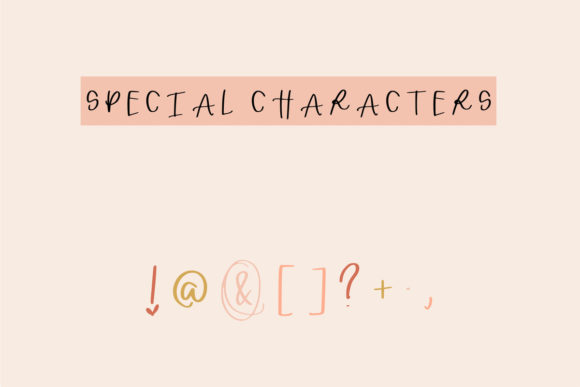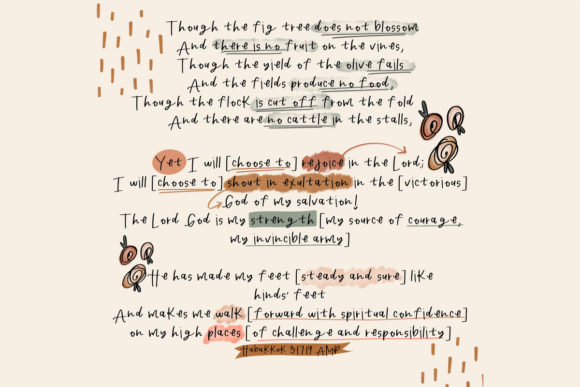
Discover the Charm of Find Wondrous Things Font
In the vast world of typography, there’s a font that stands out for its unique blend of cuteness and quirkiness, making it a perfect fit for projects that require a relaxed and informal touch. Welcome to Find Wondrous Things Font, a handwritten gem that has captured the hearts of designers and crafters alike. In this article, we’ll dive into the characteristics, uses, and benefits of this delightful font, and explore why it’s becoming a go-to choice for creatives.
The Essence of Find Wondrous Things Font
Find Wondrous Things is a cute and quirky handwritten font that exudes a casual vibe, making it an excellent choice for projects that require a personal and relaxed approach. Its informal style is reminiscent of handwritten notes, journals, and letters, which adds a touch of warmth and personality to any design. This font is perfect for designers and crafters who want to infuse their creations with a sense of playfulness and whimsy.
Key Features of Find Wondrous Things Font
- Handwritten style: Find Wondrous Things Font boasts a genuine handwritten look, complete with subtle imperfections and variations in letterforms.
- Informal and casual: This font is designed to evoke a sense of relaxation and friendliness, making it perfect for projects that require a laid-back approach.
- Quirky and playful: Find Wondrous Things Font has a unique charm that adds a touch of whimsy to any design.
- Easy to read: Despite its informal style, this font remains highly legible, making it suitable for a wide range of applications.
Uses of Find Wondrous Things Font
Find Wondrous Things Font is a versatile typeface that can be used in various creative projects, including:
- Branding and packaging: Add a personal touch to your brand’s identity with this font’s unique charm.
- Stationery and invitations: Create beautiful, one-of-a-kind stationery, invitations, and greeting cards with Find Wondrous Things Font.
- Digital design: Use this font in social media graphics, blog posts, and website designs to add a touch of personality.
- Crafting and DIY projects: Find Wondrous Things Font is perfect for crafters who want to add a personal touch to their projects, such as handmade cards, scrapbooking, and journaling.
Benefits of Using Find Wondrous Things Font
So, why should you choose Find Wondrous Things Font for your next project? Here are just a few benefits:
- Unique and eye-catching: This font’s quirky style will help your design stand out from the crowd.
- Time-saving: With this font, you can create professional-looking designs in no time, without sacrificing personality and charm.
Find Wondrous Things Font is a delightful handwritten typeface that adds a touch of whimsy and personality to any design. Its informal style, casual vibe, and quirky charm make it a go-to choice for designers and crafters who want to create unique and eye-catching projects. Whether you’re working on branding, stationery, digital design, or crafting, this font is sure to become a favorite in your creative arsenal. So, go ahead and discover the charm of Find Wondrous Things Font – your designs will thank you!